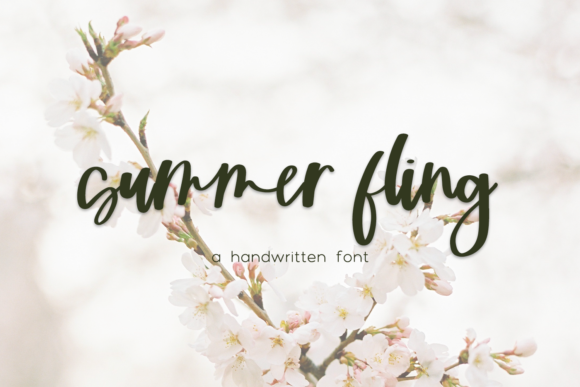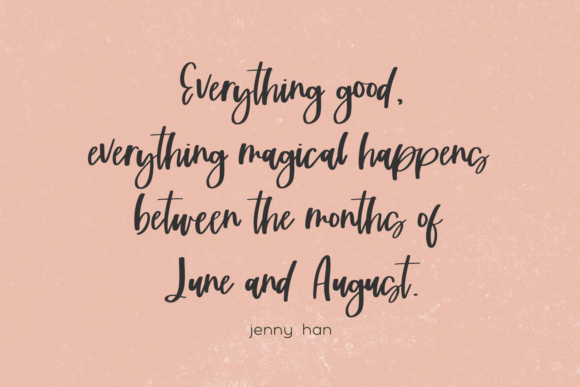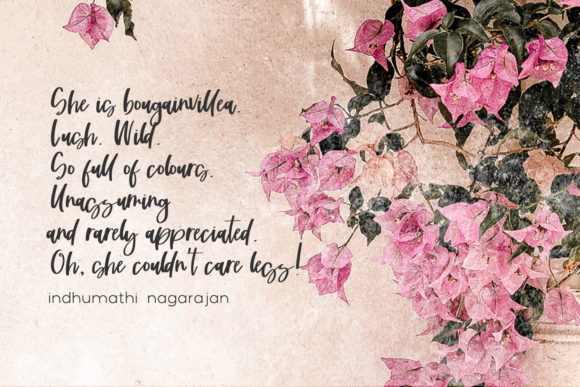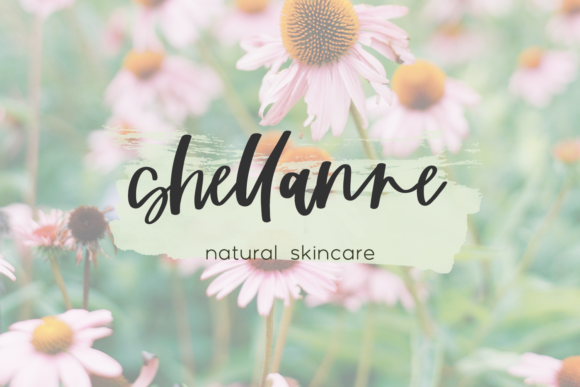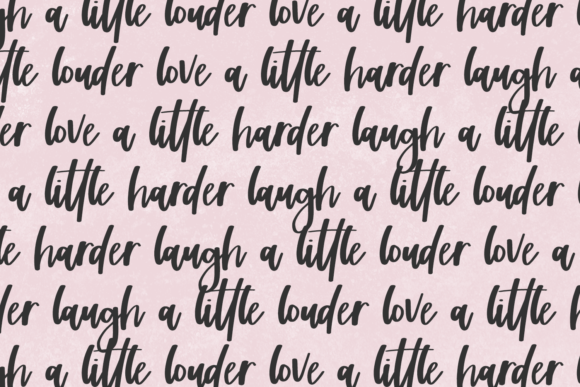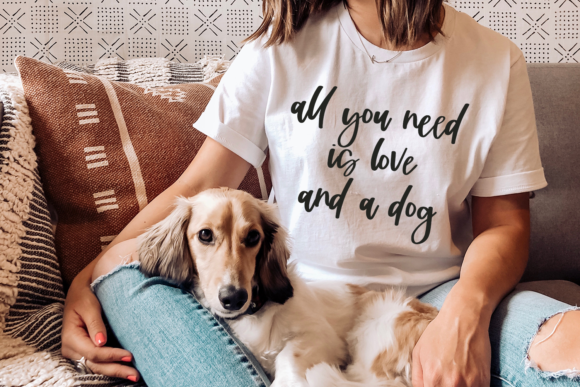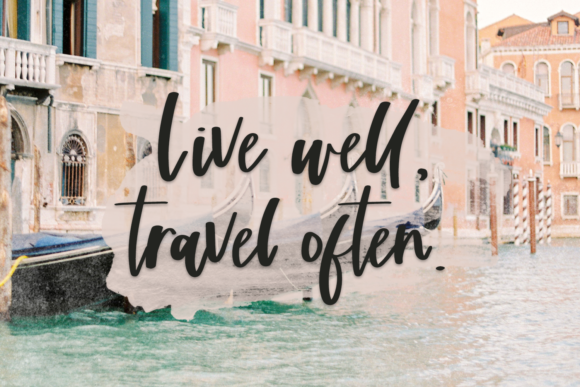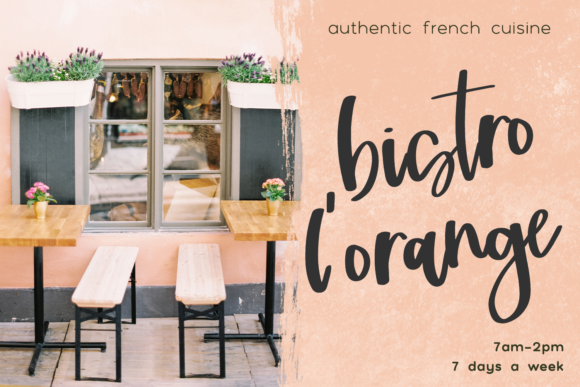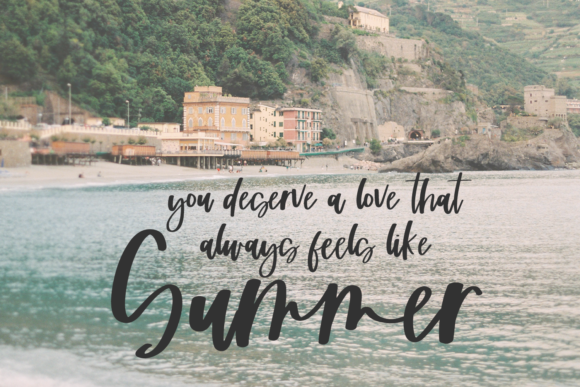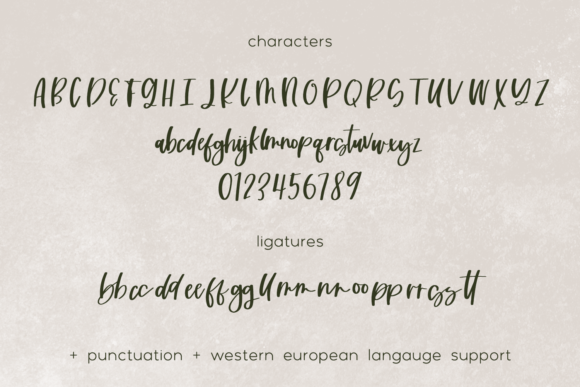
Summer Fling Script Font
About Summer Fling Script Font
Summer Fling Script is a simple and flowing handwritten font. This adaptable font will look great on a variety of design ideas. It will add a fun and friendly touch to each of your projects!